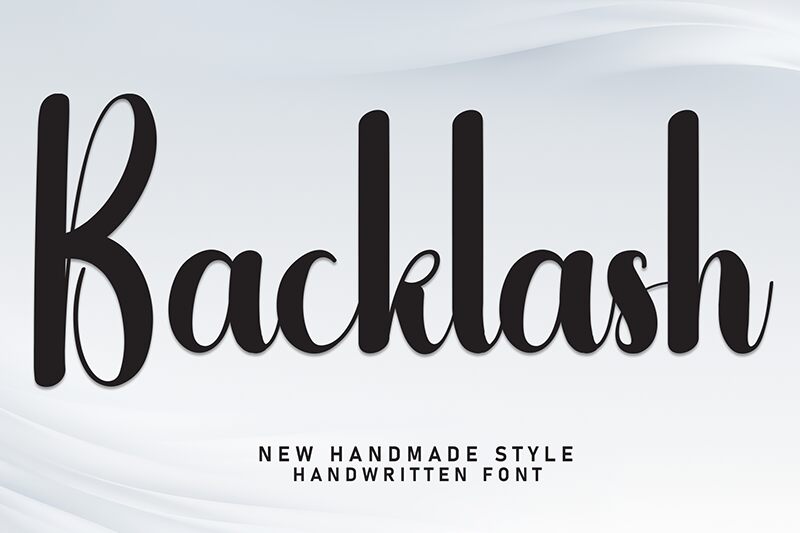
Backlash
Backlash font by Andi Moz is a condensed handwritten font with elegance and sophistication. It mixes modern calligraphy with a decorative flair that will impress your audience. The elegance of the letters, combined with the smooth flow of the letters, adds a unique touch to this exquisite free font.